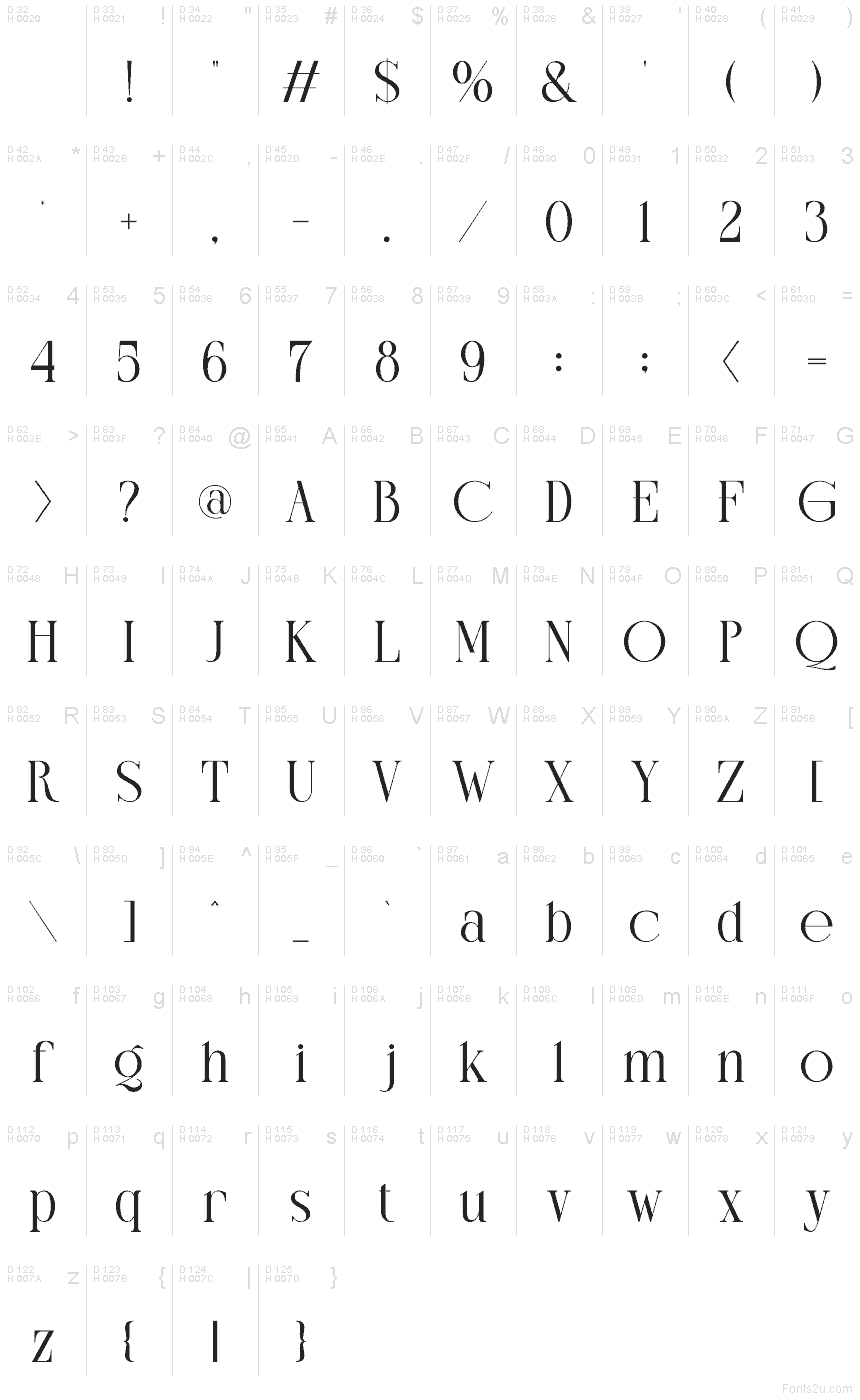
Lenior
Lenior by Ermedia Studio is a free serif font. Built around sleek, sculpted strokes and razor-thin hairlines, it balances voluptuous curves with knife-edge cuts that catch the light like polished metal. The dramatic contrast opens generous pockets of white space, giving headlines a glossy, editorial snap without losing warmth.
Using Lenior, you get a rhythmic, couture presence that shines on fashion branding, magazine covers, luxury packaging, beauty logos, event invitations, portfolio titles, and statement posters. Its tight, poised spacing locks letters together for a refined cadence that reads bold at large sizes. Simple tip: pair this free font with a calm geometric sans at smaller text to let Lenior’s flourishes breathe.